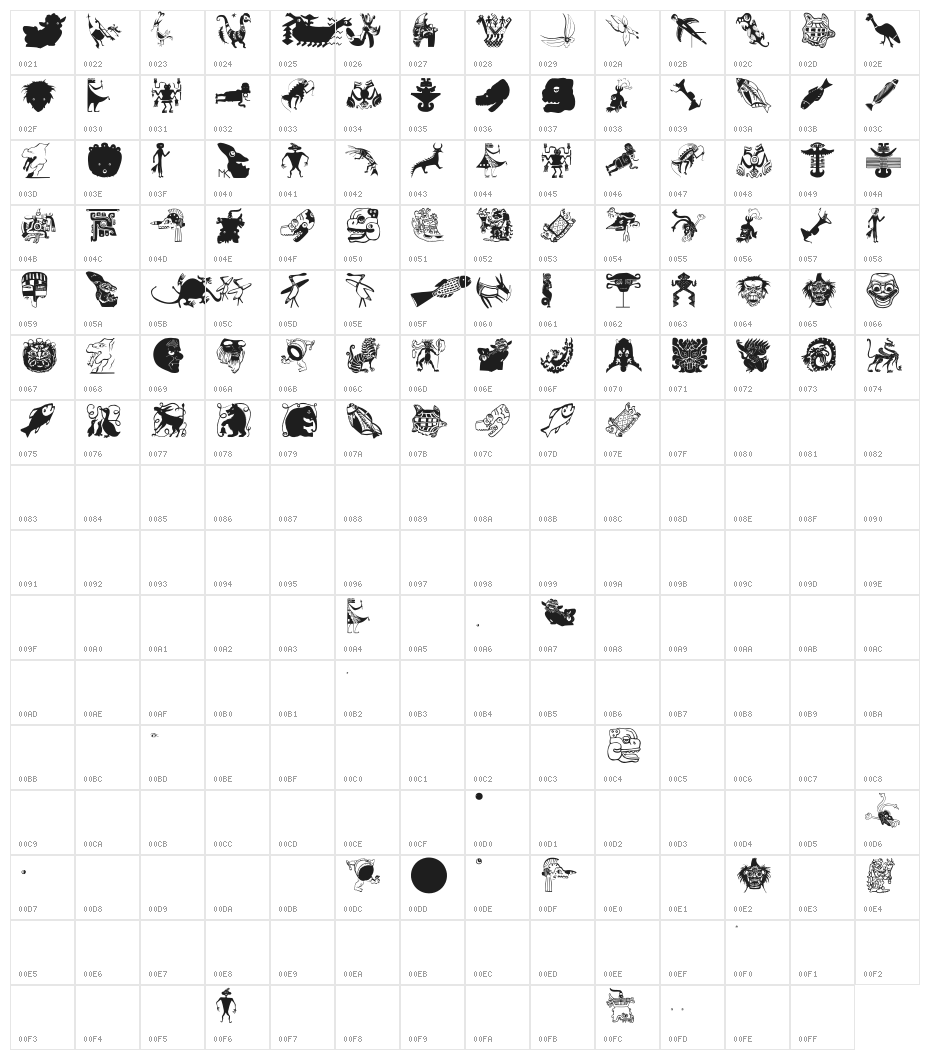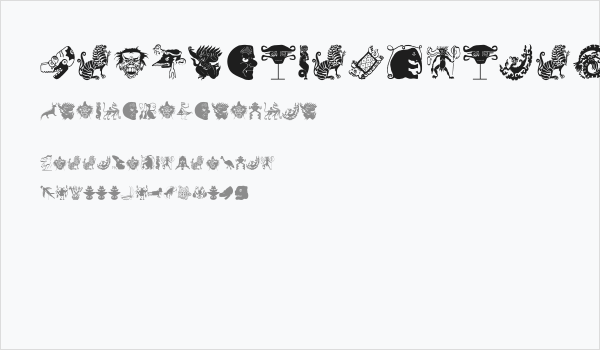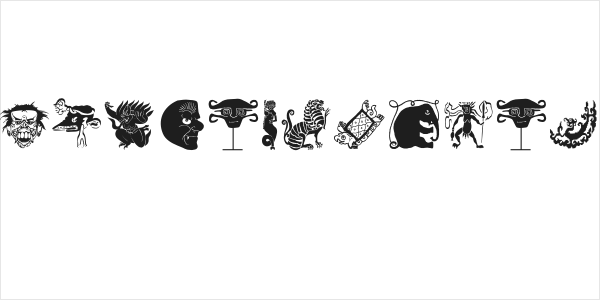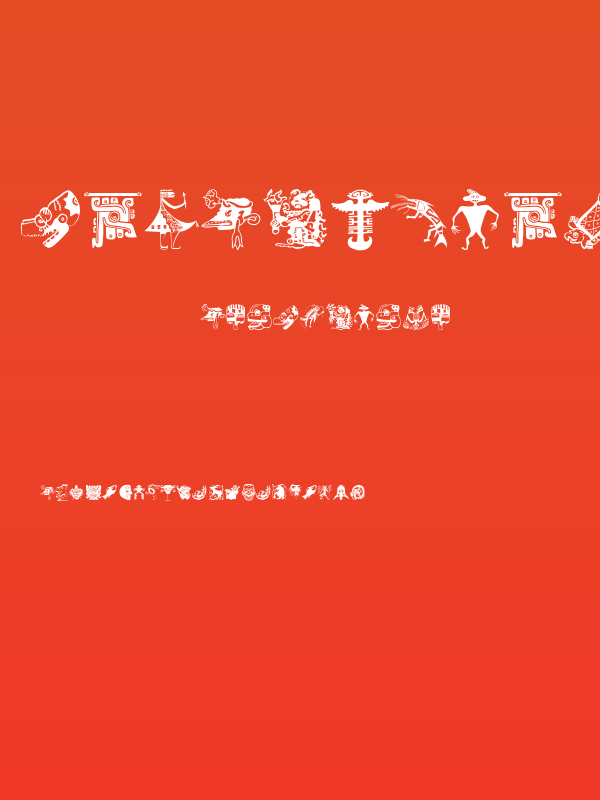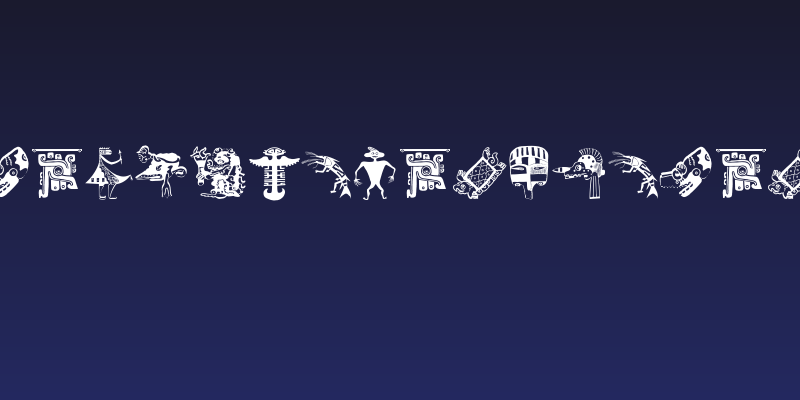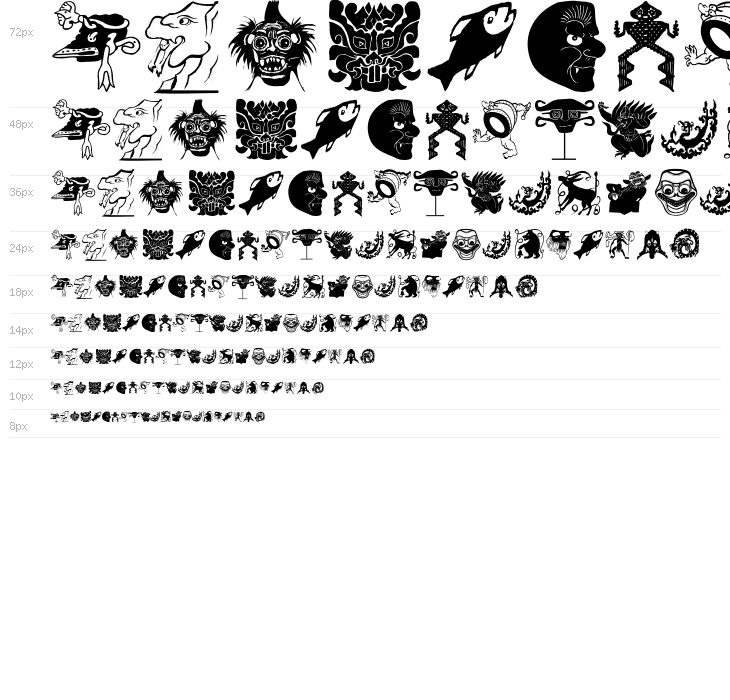
OldTribalSymbols Font
OldTribalSymbols Description
A highly decorative and illustrative typeface featuring intricate tribal and mythological symbols, each character rendered as a unique pictogram or glyph with bold, complex linework and organic shapes.
| Overall Style | Decorative, Ethnic, Tribal, Mythological |
| Use Case | Logos, Headlines, Posters, Artistic projects |
| Proposed Projects | Posters, album covers, cultural event branding, educational materials, art projects, themed invitations. |